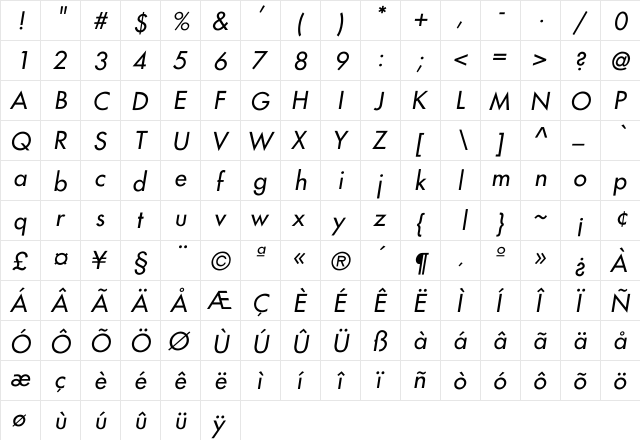
Narragansette Italic Regular
Design Context for Narragansette Italic Typeface
Narragansette Italic is a composed and adaptable typeface that performs quietly and consistently across a wide range of design contexts. Its italic angle brings a sense of urgency and motion to the letterforms.
Pro Tip: Try Narragansette Italic for annotation and caption copy alongside an upright companion — the contrast in angle creates a dynamic but ordered typographic system.